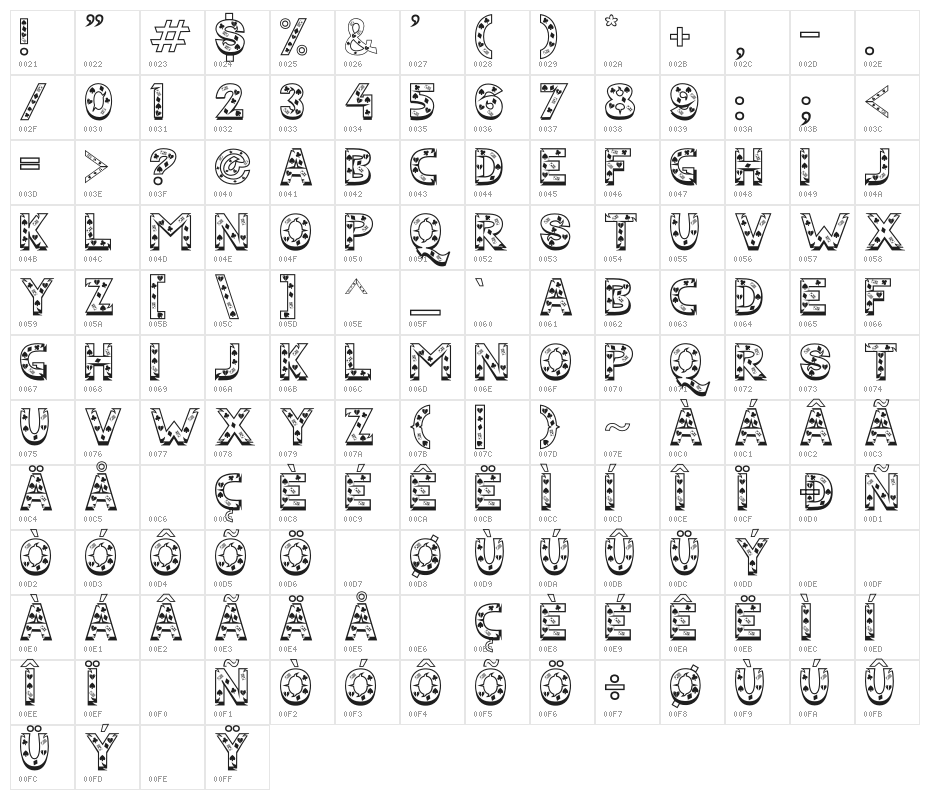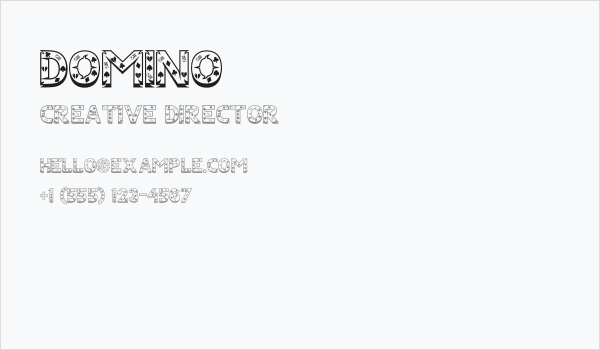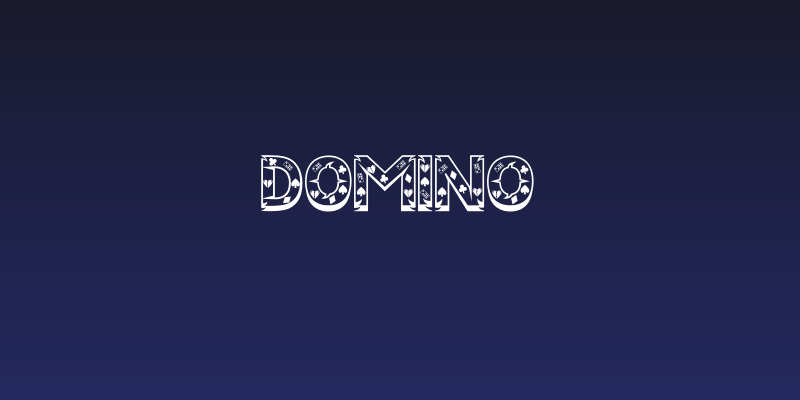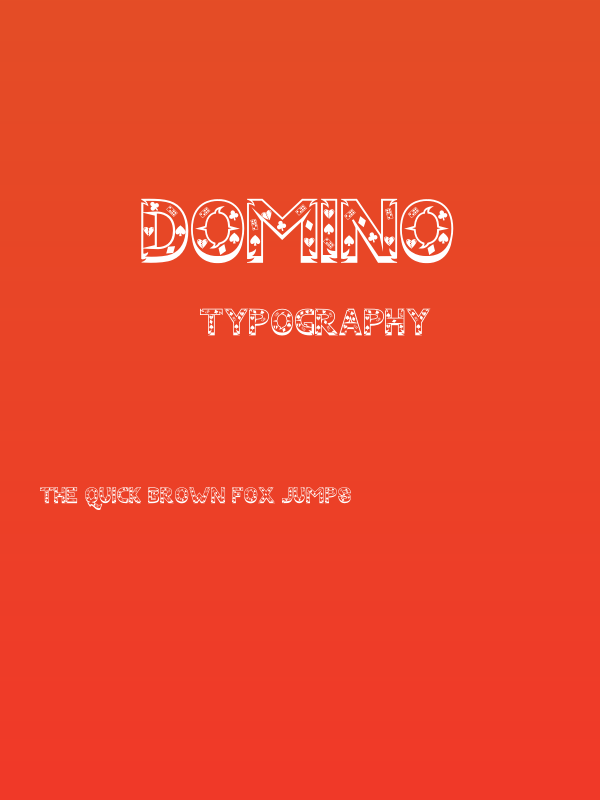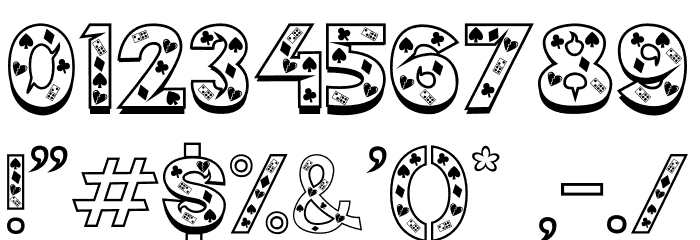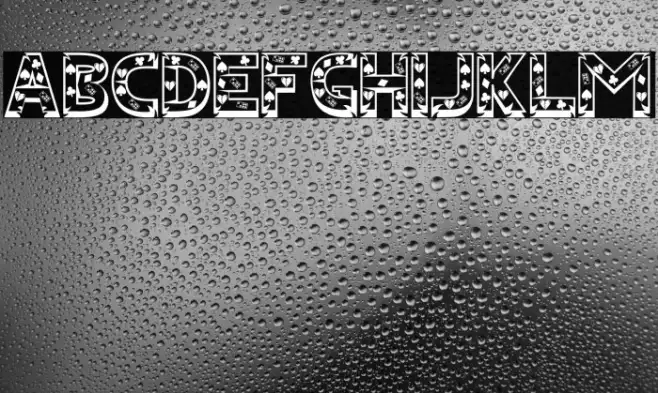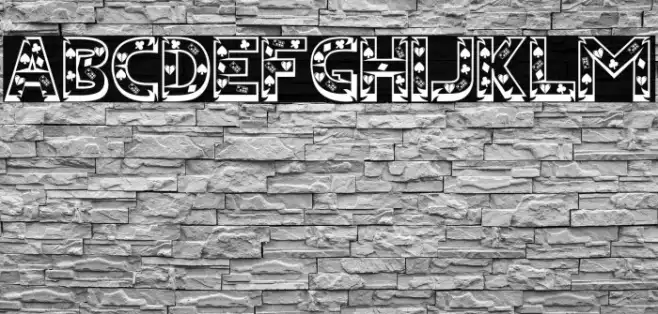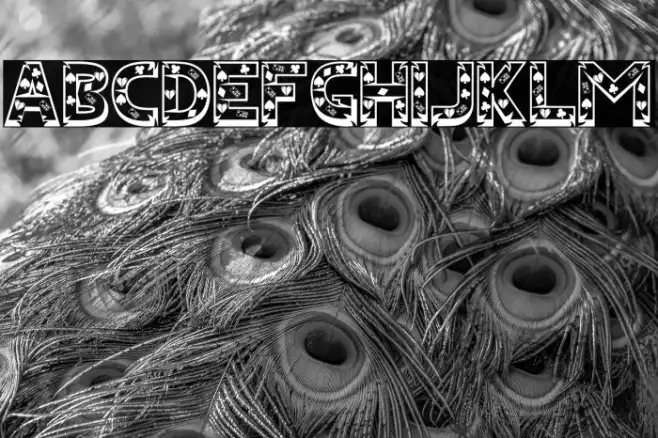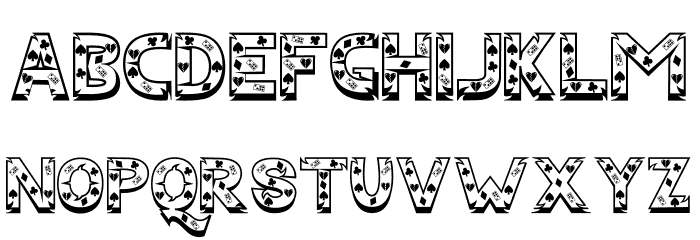
DOMINO Font
DOMINO Description
This font features a playful and decorative style, incorporating domino and card suit motifs within each character. The letters are bold and outlined, with intricate patterns filling the interior space, making it highly decorative and eye-catching. The font maintains a consistent structure across uppercase, lowercase, numbers, and special characters, ensuring uniformity. Its unique design is ideal for projects that require a fun and thematic approach, such as game-related materials or playful branding. The bold outlines and filled patterns give it a strong presence, suitable for attention-grabbing headlines or logos.
| Proposed Projects | Ideal for game-themed designs, playful branding, or decorative headlines. |